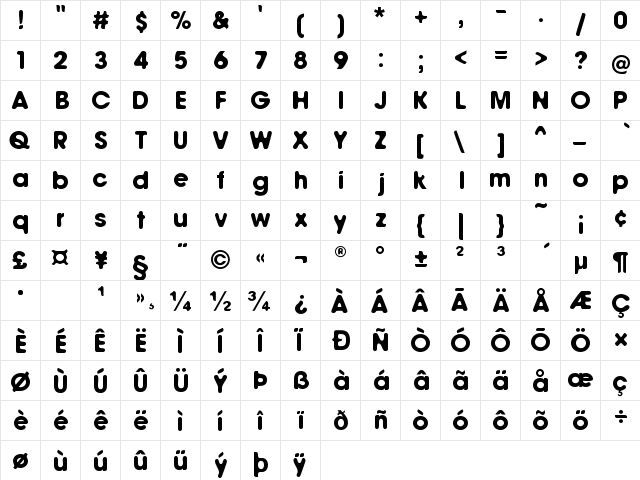
Llewie Regular
Design Context for Llewie Typeface
Llewie takes a measured approach to typography — its balanced proportions and neutral character make it a reliable workhorse for both digital and print work.